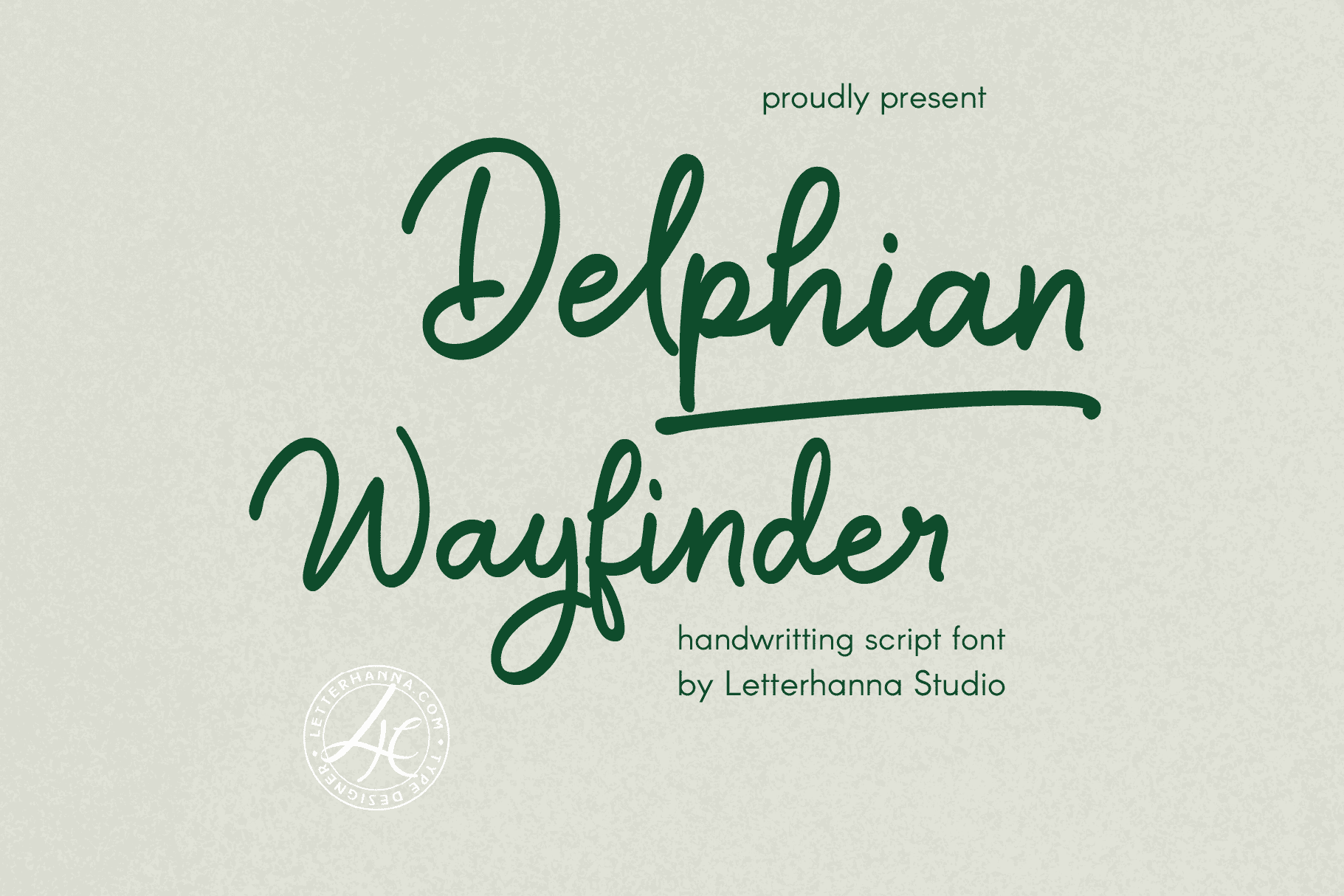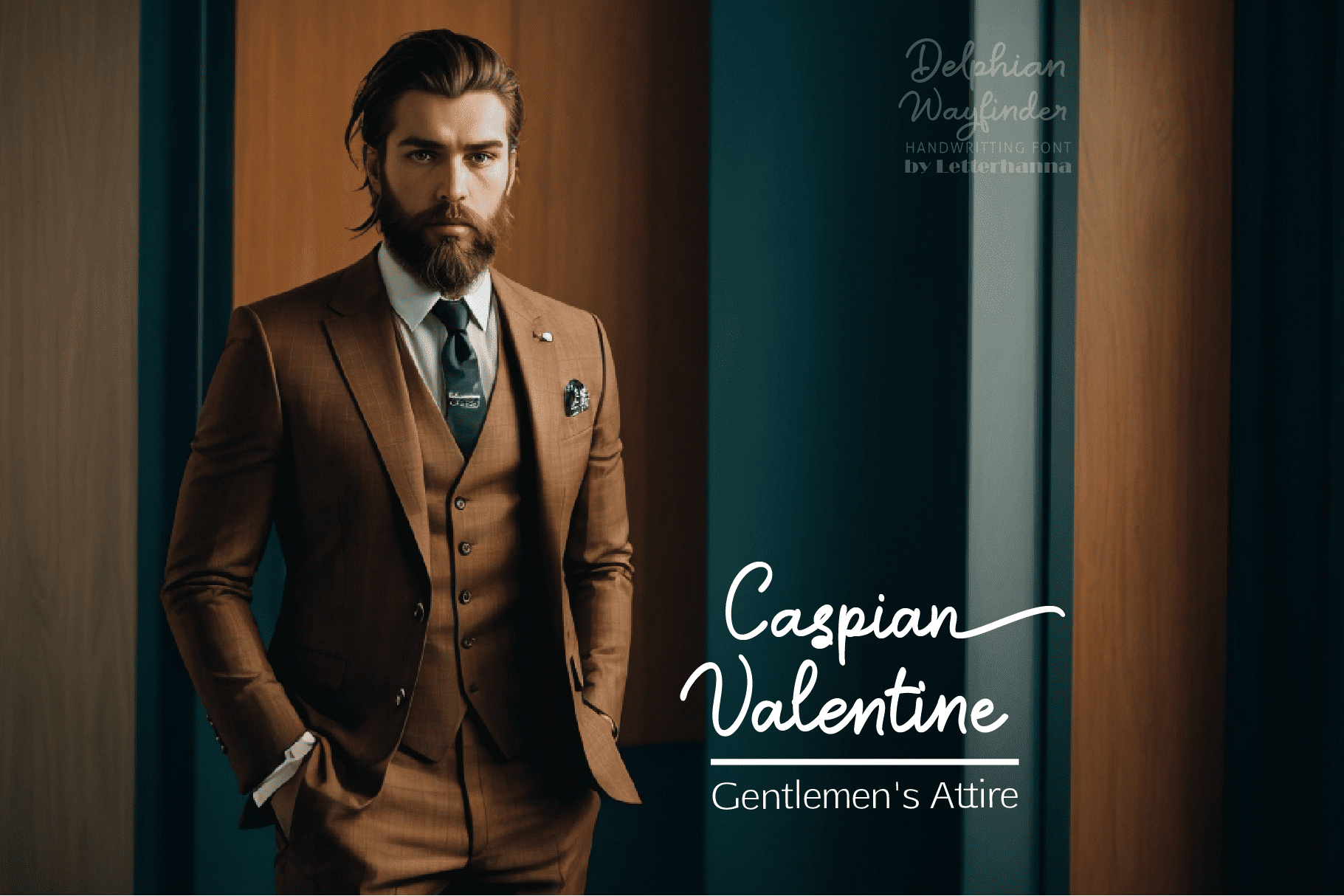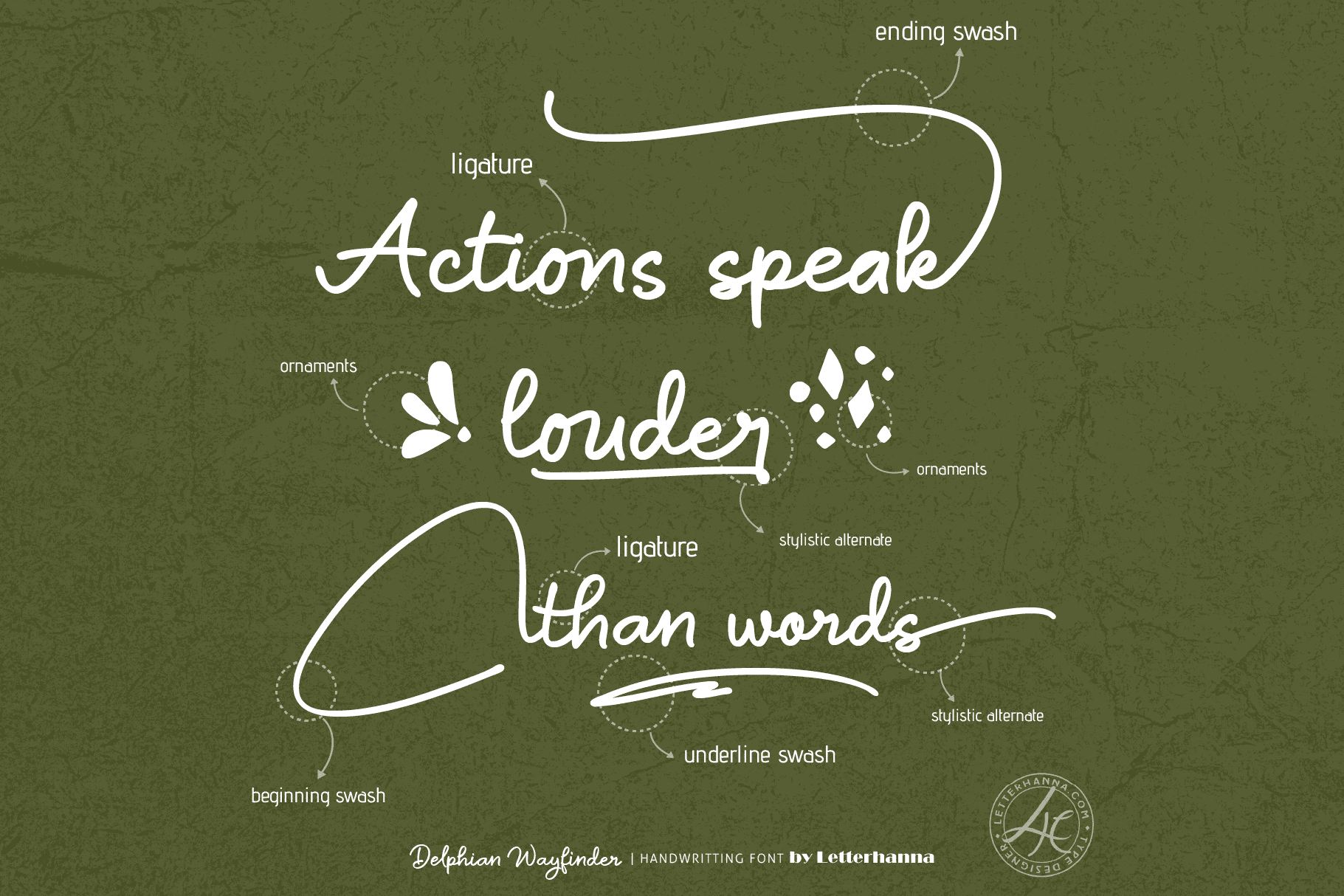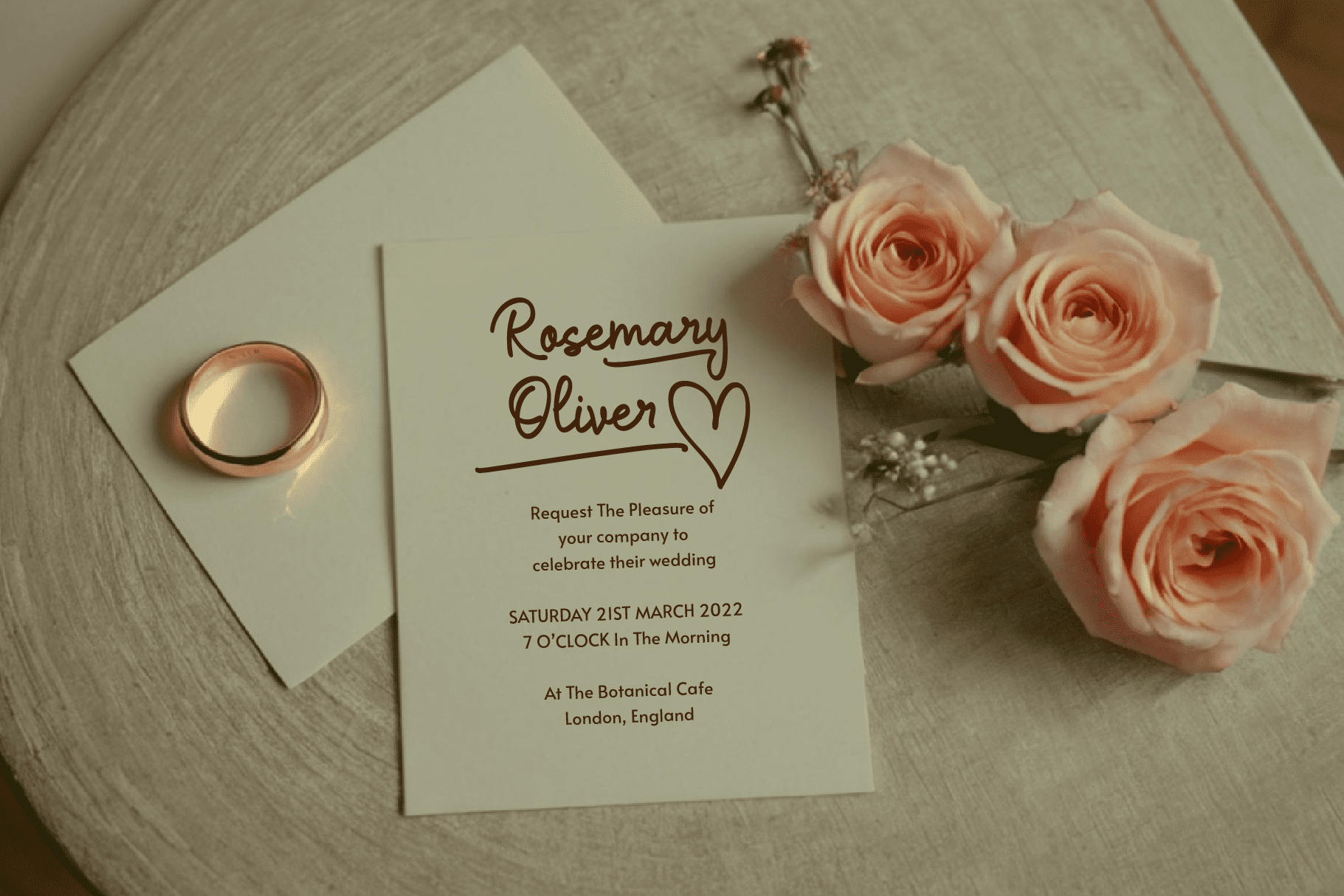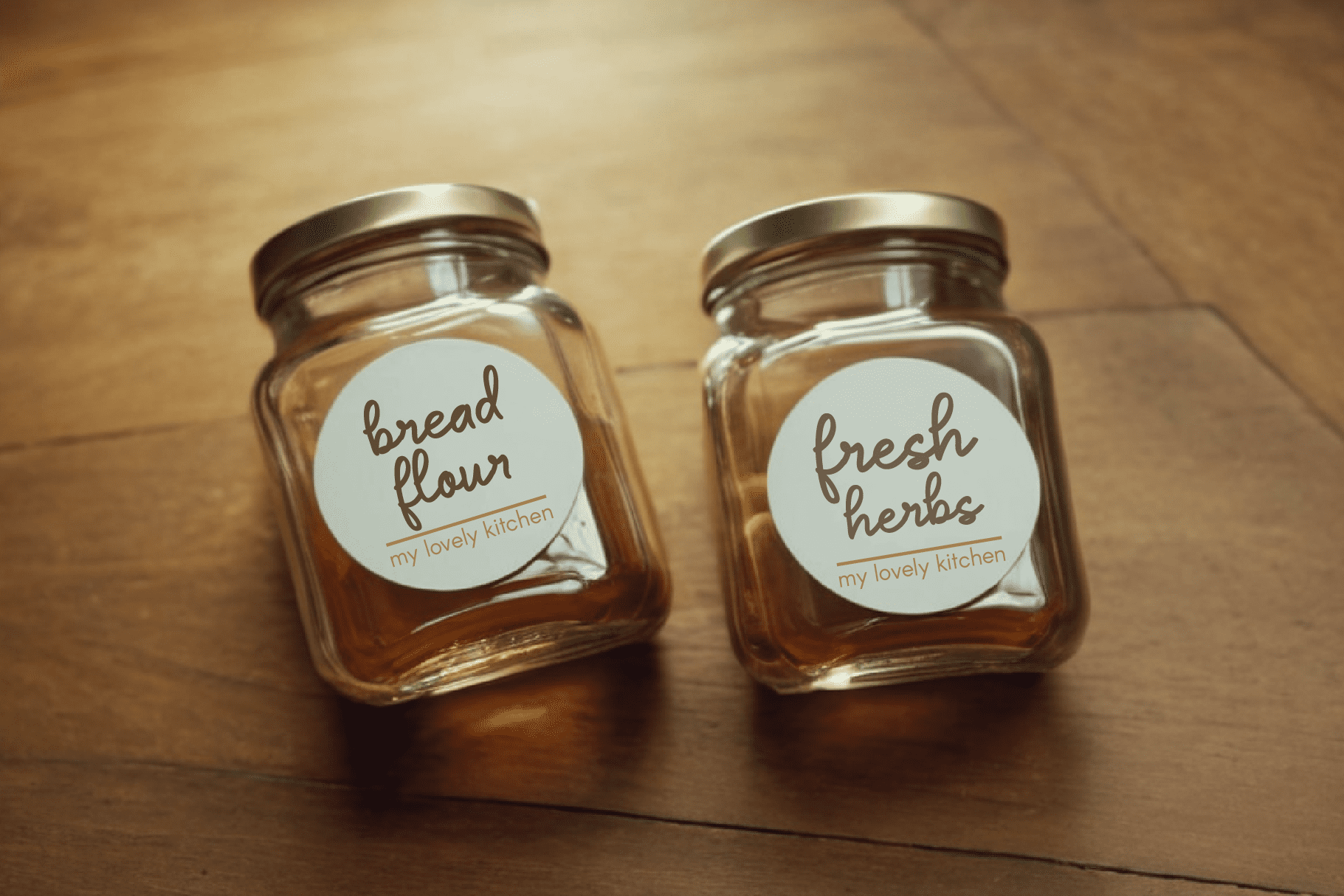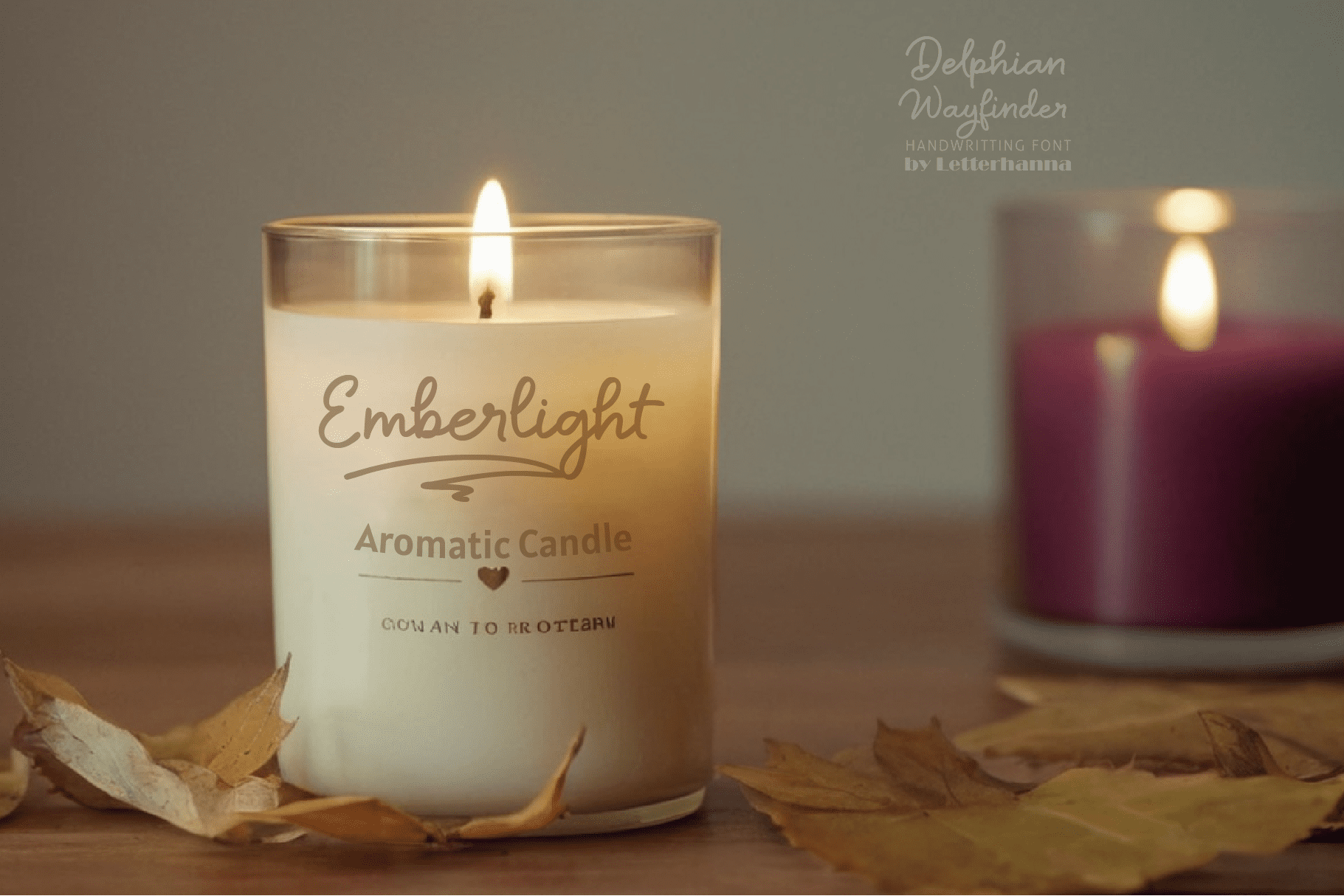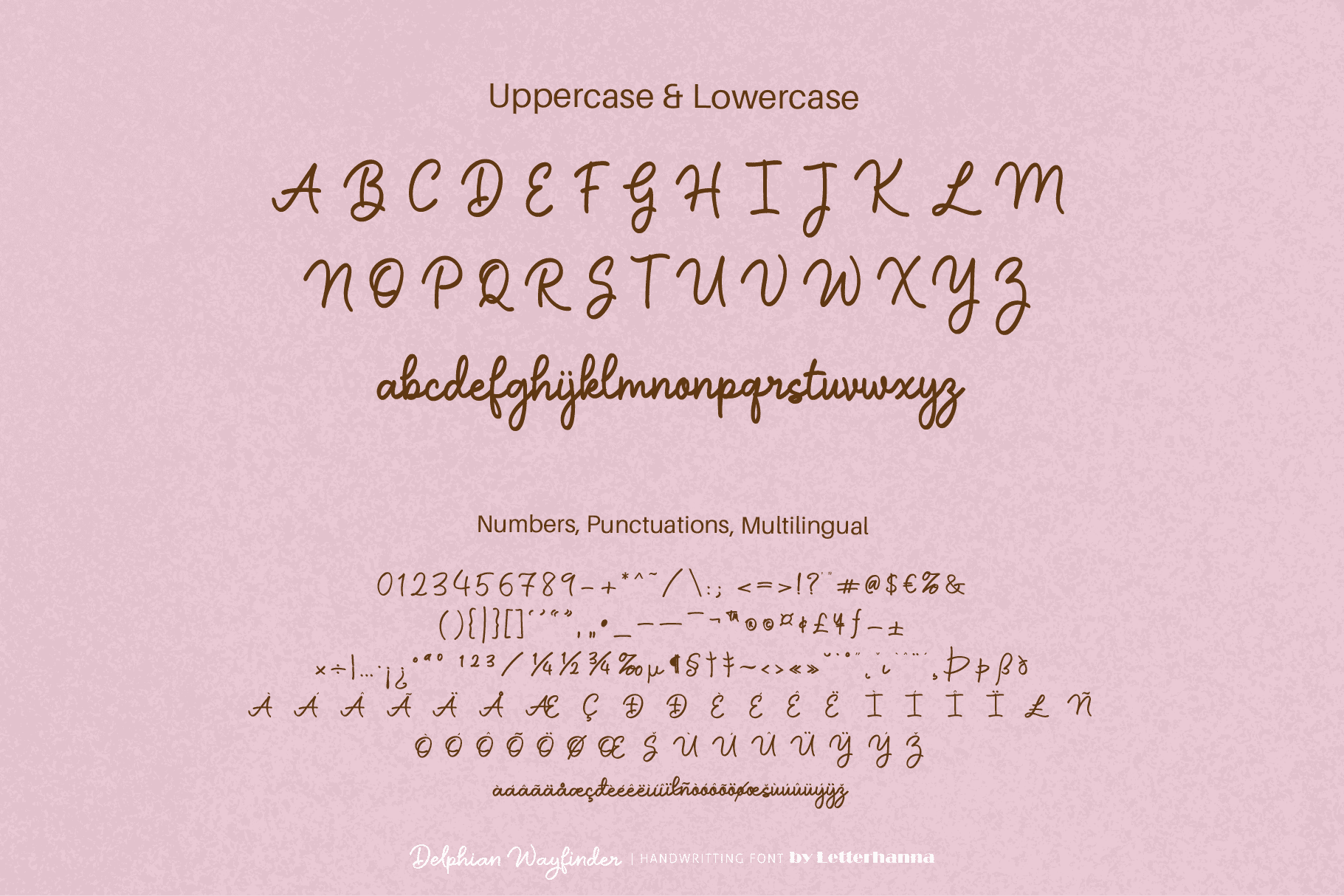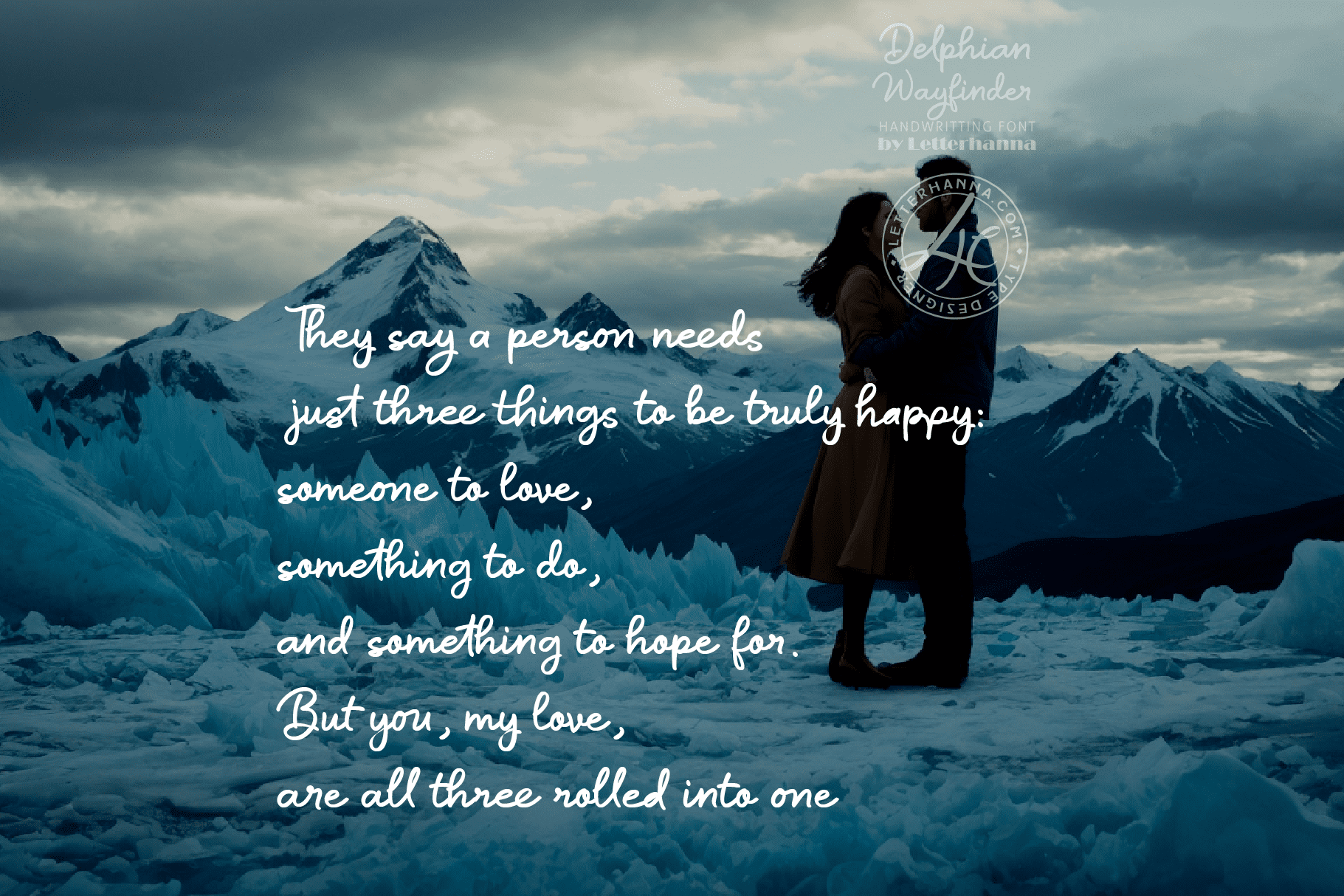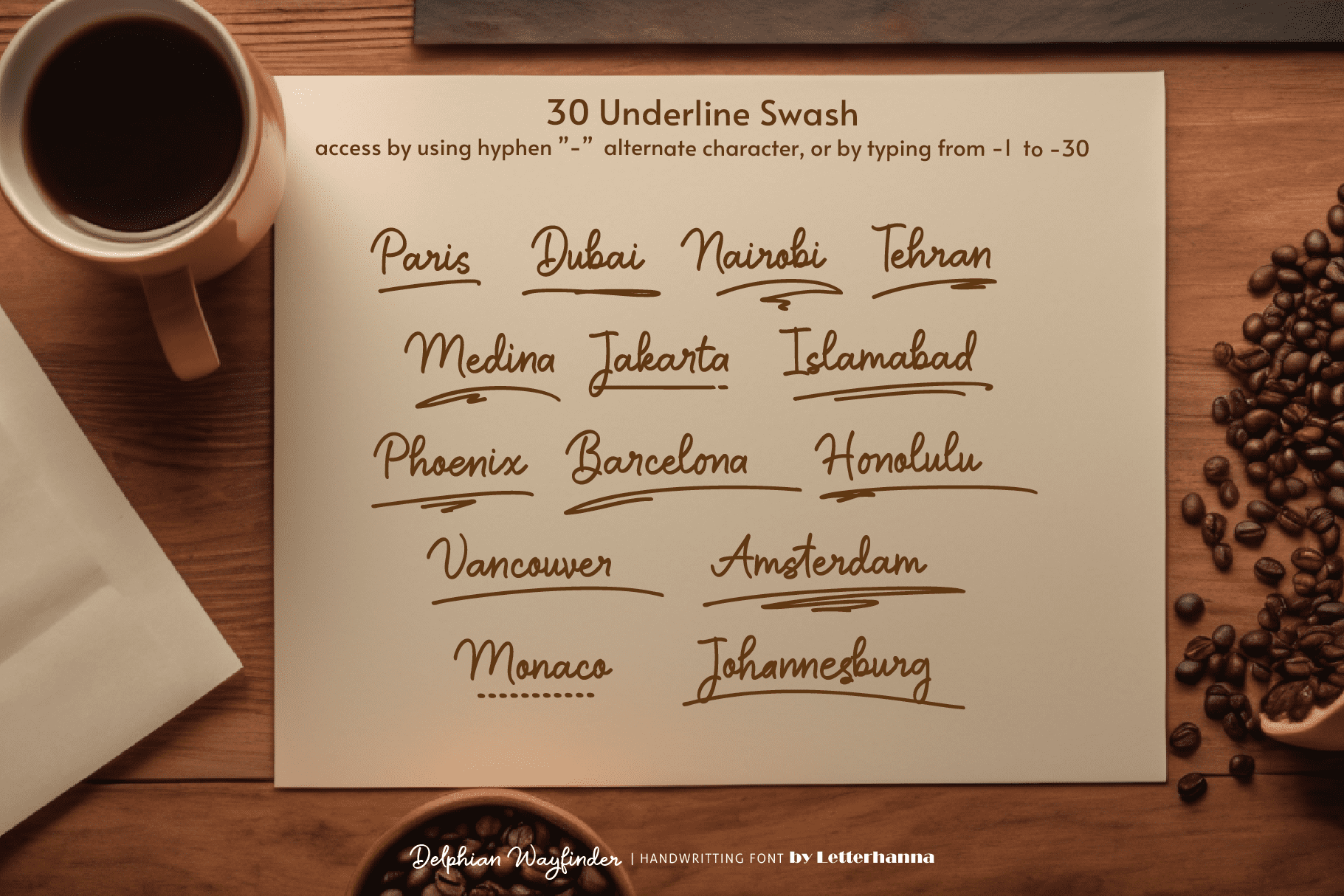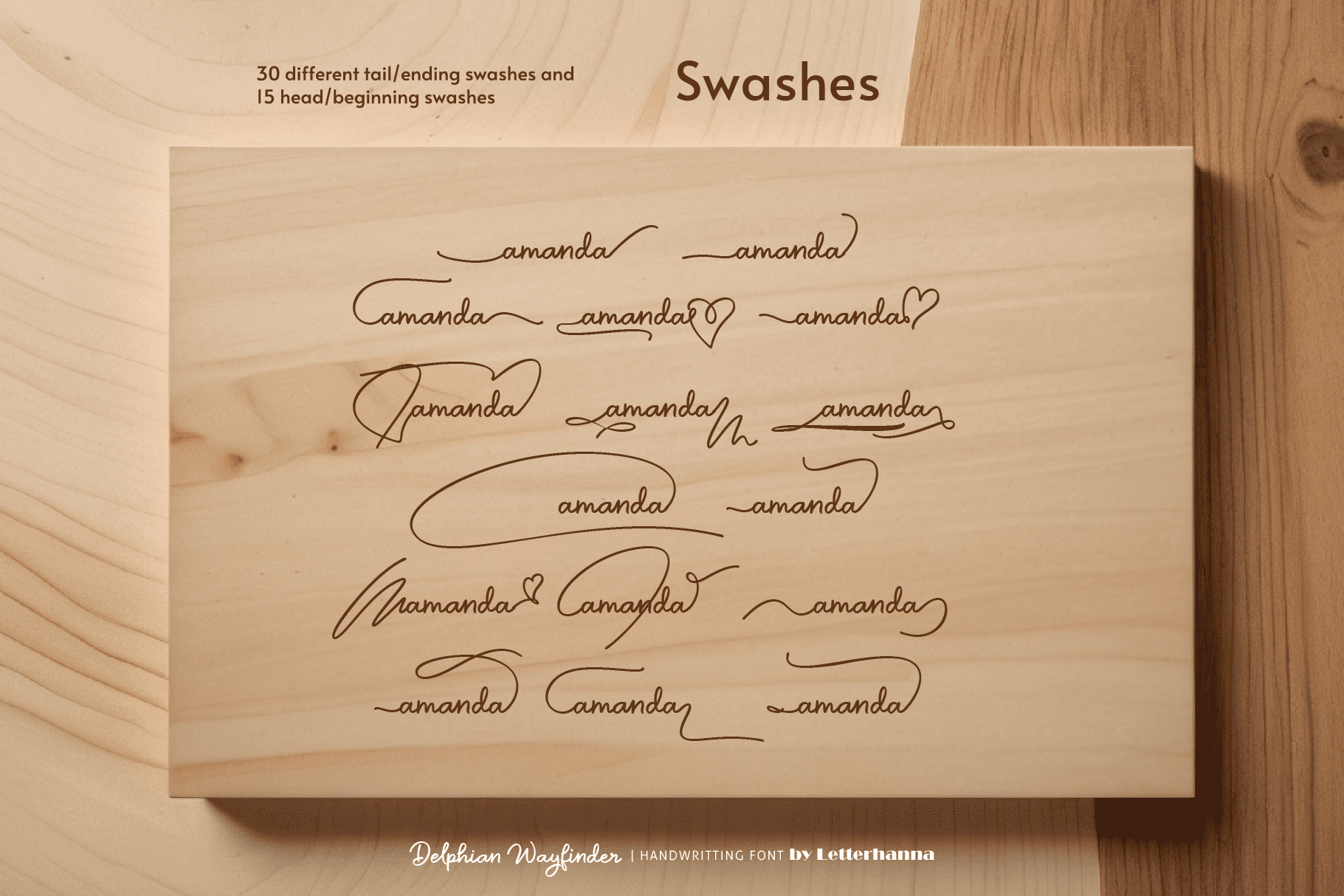
Unveiling Delphian Wayfinder: A Font for the Journey
Introducing Delphian Wayfinder, a new typeface designed to guide your creative path. Inspired by the ancient oracle of Delphi, known for its wisdom and prophetic pronouncements, this font embodies clarity and direction. Delphian Wayfinder’s elegant curves and balanced structure evoke a sense of timeless knowledge, perfect for projects that demand both authority and approachability.
Whether you’re crafting captivating headlines, informative text, or impactful branding materials, Delphian Wayfinder will lead you to success. Navigate your design journey with confidence and clarity, letting this versatile font illuminate your message.
Accessing Stylistic Alternates
Stylistic alternates can be accessed by typing a plus symbol “+” in front of the original letter. For example, type “+a” to get the stylistic alternate of the letter a.
- Underline Swashes: Use a hyphen symbol “-” followed by a number between 1 and 30. For example, type “-3”, “-22”, or “-17” to get various underline swashes.
- Head/Beginning Swashes: Use a dollar sign “$” followed by a number between 1 and 9. For example, type “$2” or “$8” to get different head/beginning swashes.
- Tail/Ending Swashes: Use a percent sign “%” followed by a number between 1 and 30. For example, type “%3” or “%15” to get various tail/ending swashes.
- Ornaments: Use an “at” symbol “@” followed by a number between 1 and 26. For example, type “@4” or “@13” to get different ornaments.
- Stylistic alternates